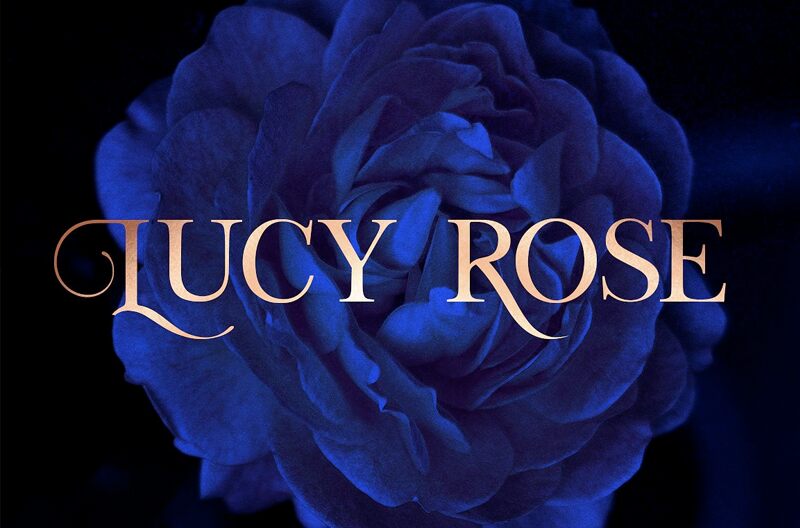
Lucy Rose, designed by Ellen Luff, is a stunning serif font that exudes elegance and refinement. Its delicate curves and precise lines create a truly unique look that's perfect for any project looking to add a touch of sophistication. Whether you're designing wedding invitations, creating business cards or crafting elegant social media posts, Lucy Rose is the ideal font choice for your project. With its versatile semi-bold font and medium-width style, this typeface is suitable for everything from branding to editorial design. Make your work stand out with the timeless beauty of Lucy Rose.
Lucy Rose includes:
All caps font
Tall version
108 stylistic alternatives
All punctuation and numbers
Foreign character support